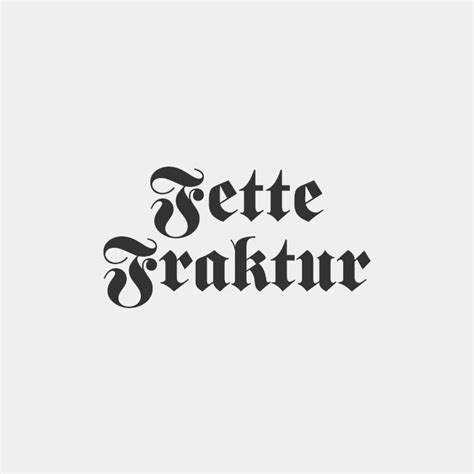
Fette Fraktur: A Bold Gothic Typeface
Hey guys, let’s dive into the world of typography and talk about a font that’s seriously made a statement: Fette National Fraktur . You’ve probably seen it around, maybe without even realizing its name. This isn’t just any old font; it’s a bold, striking blackletter typeface that oozes history and carries a certain gravitas. When we talk about Fette National Fraktur, we’re really discussing a piece of design heritage that continues to capture attention. Its distinctive style is rooted in the Gothic script traditions of Germany, and the name itself gives us clues. ‘Fette’ in German means ‘fat’ or ‘bold,’ and ‘Fraktur’ refers to the specific style of blackletter script characterized by its broken strokes and angular forms . So, right off the bat, the name tells you this font is designed to be loud and clear , not shy by any means.
The history of blackletter fonts, or Gothic script, is a long and fascinating one, stretching back to the late Middle Ages. These scripts were the standard for manuscripts and early printing. Fraktur, specifically, gained prominence in the 16th century, largely thanks to Emperor Maximilian I, who commissioned humanist scholars and artists to develop a new, more readable script that blended elements of textura and rotunda styles. The goal was to create something that was both elegant and efficient for printing . Over centuries, various iterations and styles of Fraktur emerged, each with its own subtle nuances. Fette National Fraktur, however, stands out for its exaggerated boldness and strong presence . It wasn’t just about readability; it was about making a powerful visual impact . Think of it as the blackletter equivalent of a modern-day heavy sans-serif – designed to grab your eye and not let go.
What makes Fette National Fraktur so recognizable? It’s the thick, heavy strokes that dominate the letterforms. Unlike some of its more delicate blackletter cousins, Fette National Fraktur doesn’t play around. The thickest parts of the letters are really, really thick, creating a high contrast that’s both dramatic and somewhat demanding. The angular serifs, the sharp breaks in the strokes, and the overall compressed feeling give it a distinctly German flavor . This isn’t a font you’d typically use for a casual blog post or a friendly invitation, unless you’re going for a very specific, historical, or perhaps even intimidating vibe. Its strength lies in its ability to convey tradition, authority, and a sense of permanence. It’s the kind of font that might be used for official documents, historical reenactments, or perhaps in branding for businesses that want to evoke a sense of heritage, craftsmanship, or even a touch of old-world drama .
Navigating the use of Fette National Fraktur requires a bit of finesse, guys. Because it’s so visually dominant, it can easily overwhelm other design elements if not handled with care. It’s often best used sparingly and strategically . Think headlines, display text, or logos where you want a strong, memorable impact . For body text, it’s generally a no-go. Imagine trying to read a novel set in Fette National Fraktur – your eyes would probably be staging a protest! Its complexity and high contrast can make sustained reading a real challenge. However, when used correctly, it can lend an unparalleled sense of authenticity and historical weight to a design. It’s a font that tells a story, a story of craftsmanship, tradition, and a particular aesthetic that has endured for centuries. So, next time you see a font that’s bold, angular, and steeped in history, take a closer look. You might just be encountering the powerful presence of Fette National Fraktur.
The Historical Context of Blackletter Fonts
When we’re talking about Fette National Fraktur , it’s impossible to ignore its deep roots in the history of writing and printing, specifically the blackletter or Gothic script family . These fonts aren’t just arbitrary designs; they evolved organically from the handwriting styles prevalent in medieval Europe. Imagine scribes in dimly lit monasteries, painstakingly copying manuscripts. To save space on expensive parchment and to write more quickly, their handwriting began to become more condensed and angular, with sharp, broken strokes. This evolution gave rise to what we now call blackletter. The name ‘blackletter’ itself refers to the dense, dark appearance of the text on the page, a stark contrast to the lighter, more open scripts like Carolingian minuscule that preceded it.
The Fraktur style, which is central to Fette National Fraktur, emerged in Germany in the early 16th century. It was a deliberate effort to create a distinctively German typographic style. Emperor Maximilian I played a significant role, commissioning designs that would be used in printed works associated with his reign. The goal was to create a script that was both national in character and legible for print . Fraktur scripts are characterized by their broken, angular strokes and often feature heavy, dark serifs . Unlike the more rounded gothic scripts like Rotunda, Fraktur has a more jagged, somewhat severe appearance. The term ‘Fraktur’ literally means ‘broken’ in Latin, referring to these characteristic breaks in the strokes. It became incredibly popular throughout German-speaking lands and remained the dominant style for German printing for centuries, well into the 20th century.
Fette National Fraktur, as its name suggests (‘fette’ meaning ‘fat’ or ‘bold’), is an exaggerated version of the Fraktur style . It emphasizes the thickest parts of the strokes to an extreme degree, creating a very high contrast and a powerful, almost imposing visual presence. This boldness made it particularly suitable for headlines, titles, and other display purposes where a strong impact was desired. It wasn’t designed for the quiet contemplation of long prose but for making a statement. Its use often signified importance, tradition, and a sense of national identity , particularly within Germany. The font carries with it the weight of history, of formal pronouncements, and of a distinct cultural heritage. Understanding this historical context is key to appreciating why Fette National Fraktur evokes such a strong reaction and why its design choices are so deliberate and impactful. It’s a font that speaks volumes about the era and the culture from which it sprang.
Key Characteristics of Fette National Fraktur
Alright, let’s break down what makes Fette National Fraktur so… well, fette ! When you look at this typeface, several defining characteristics immediately jump out at you, guys. First and foremost is the extreme boldness or ‘fatness’ that the name implies. The thickest strokes are incredibly pronounced, creating a very high contrast between the thickest and thinnest parts of the letters. This isn’t subtle; it’s a deliberate design choice meant to make the typeface command attention. Think of it like this: if other blackletter fonts are speaking, Fette National Fraktur is shouting, but in a way that’s still quite formal and structured.
Another major characteristic is its angularity and sharpness . The curves, where they exist, are often quite tight or even replaced with straight lines and sharp angles. The serifs, those little finishing strokes at the ends of letters, are typically thick, blocky, and very pronounced . They don’t taper gently; they often end abruptly, adding to the overall strong and somewhat rigid appearance. This angularity is a hallmark of the broader Fraktur family, but Fette National Fraktur amplifies it, giving it a distinctly severe and impactful look .
The overall structure of the letterforms is also worth noting. They tend to be relatively condensed or compressed, meaning they take up less horizontal space than a more rounded font. This compression, combined with the boldness, can give the text a dense, solid feel. When you see a block of text set in Fette National Fraktur, it looks substantial, almost architectural. The ‘broken’ nature of the strokes , inherent in all Fraktur fonts, is also evident here. You’ll see sharp breaks or open diagonals, particularly in letters like ‘a’, ‘e’, and ’s’, which contribute to its Gothic feel and differentiate it from earlier scripts like Textura.
Finally, let’s talk about the overall impression it creates. Fette National Fraktur is not a font for the faint of heart. It conveys a sense of power, authority, tradition, and historical gravitas . It can feel formal, serious, and even a little intimidating. This makes it incredibly effective for specific applications where you want to project these qualities – think historical documents, official seals, or branding for institutions that want to emphasize their long-standing heritage and reliability. It’s a font with a strong personality, and when you understand these characteristics, you can better appreciate its impact and how to use it effectively in your designs.
When and How to Use Fette National Fraktur
So, you’ve got this powerful font, Fette National Fraktur , sitting there, practically daring you to use it. But when and how should you actually deploy this typographic heavyweight? This is where understanding its personality becomes crucial, guys. Because it’s so bold and historically charged, Fette National Fraktur isn’t a casual choice . It’s best reserved for situations where you want to make a strong, definitive statement and lean into its historical and authoritative feel.
Headlines and Titles: This is probably the most common and effective use case. Fette National Fraktur excels at grabbing attention. Use it for the main title of an article, a book cover, or a poster where you want the text itself to be a dominant visual element. Its boldness ensures it won’t get lost, and its style immediately sets a tone – perhaps historical, formal, or even a bit dramatic. Think of museum exhibition titles, historical society publications, or even the nameplate of a traditional newspaper.
Logos and Branding: For businesses or organizations that want to emphasize tradition, heritage, craftsmanship, or a sense of established authority, Fette National Fraktur can be a powerful branding tool. Imagine a custom-made furniture maker, a heritage brewery, or a law firm that wants to project an image of gravitas and reliability. Its unique style can make a brand instantly memorable and distinct.
Special Occasions and Thematic Designs: If you’re designing for a historical reenactment, a medieval fair, a themed wedding, or any event that requires a strong historical aesthetic, this font is a natural fit. It instantly transports the viewer to another time and place.
Important Considerations for Usage:
• Use Sparingly: As mentioned, this font is loud . Overuse it, and your design will likely feel cluttered and overwhelming. It’s often best used as an accent or a primary focal point, not as the main text.
• Avoid Body Text: Seriously, guys, do not use Fette National Fraktur for paragraphs of text. The high contrast, angularity, and dense letterforms make it incredibly difficult and tiring to read for extended periods. Stick to simpler, more legible fonts for your main content.
• Pairing is Key: When you use Fette National Fraktur, consider pairing it with a simpler, more neutral font (like a clean sans-serif or a classic serif) for supporting text. This contrast helps the Fraktur stand out and prevents the overall design from becoming too heavy or illegible.
• Context is Everything: Ensure the font’s style aligns with the overall message and tone of your project. Using it in a modern, minimalist design might feel jarring unless that contrast is intentional and well-executed.
Ultimately, Fette National Fraktur is a font with a very specific personality. When you understand its strengths – its boldness, its historical weight, its authoritative presence – you can wield it effectively to create designs that are not only visually striking but also deeply resonant with their intended message. Use it wisely, and it will serve you well!